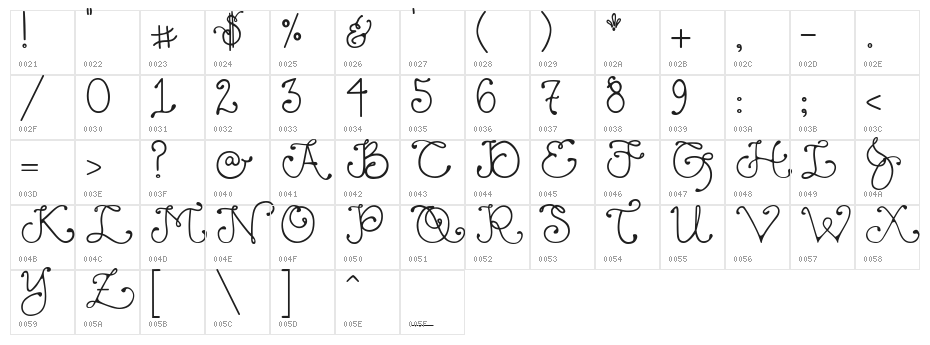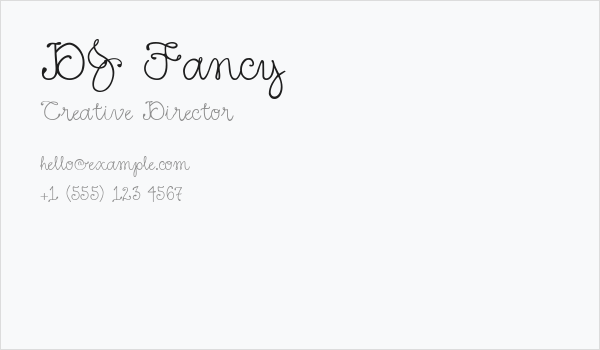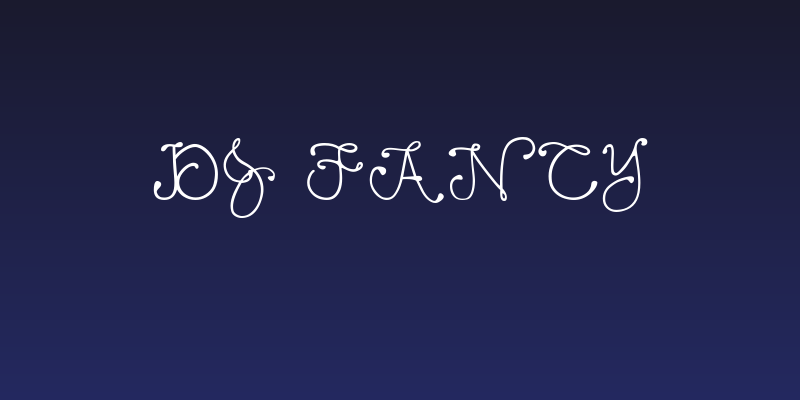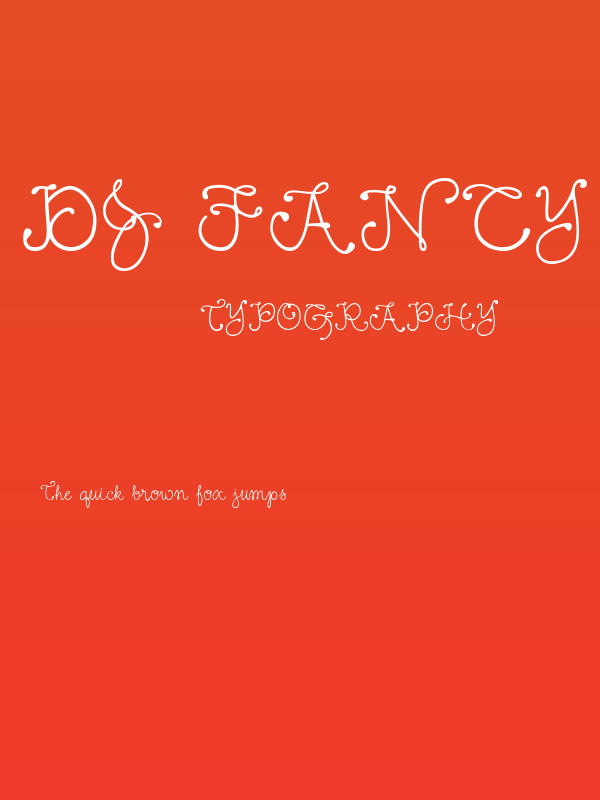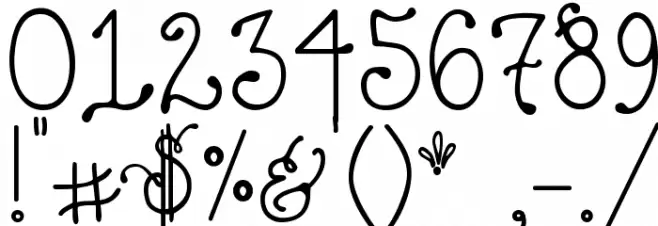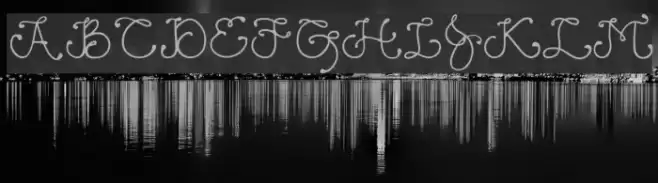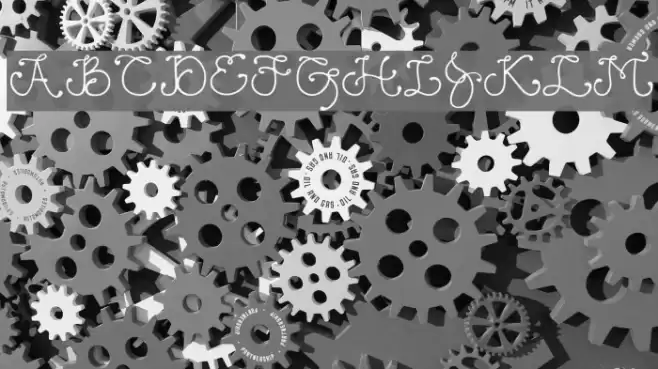
DJ Fancy Font
DJ Fancy Description
This font features a whimsical and playful design with a handwritten style. The letters are adorned with curls and loops, giving it a decorative and artistic flair. The uppercase characters are bold and expressive, while the lowercase letters maintain a consistent flow with a slightly more delicate touch. Numbers and special characters are crafted with the same attention to detail, ensuring a cohesive look throughout. The overall appearance is both elegant and fun, making it suitable for creative projects that require a touch of personality.
| Use Case | Logos, Invitations, Artistic Posters |
| Proposed Projects | Ideal for invitations, greeting cards, playful branding, and artistic posters. |